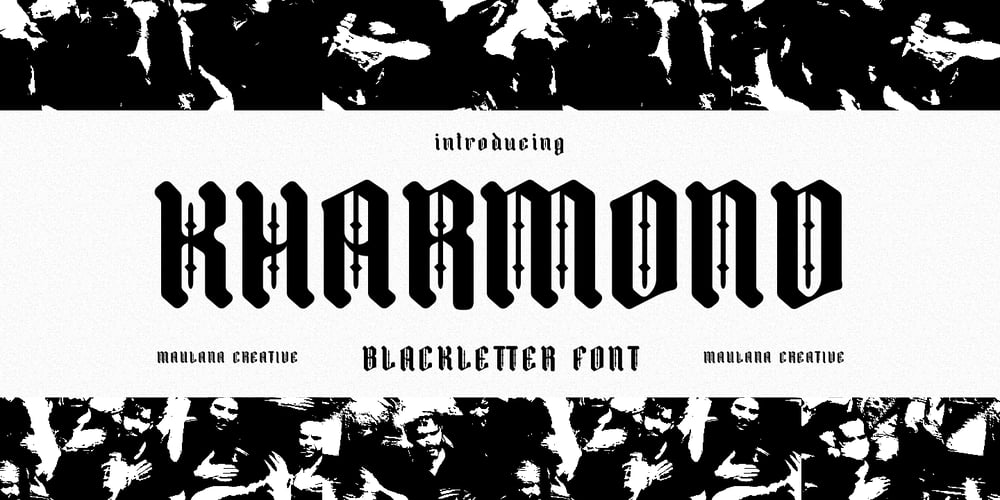
MC Kharmond Font Family was designed by Gilang Maulana and published by Maulana Creative. MC Kharmond contains 1 styles and family package options. Kharmond is a fancy blackletter modern display font. With medium low contrast stroke, fun character with a bit of ligatures and alternates. To give you an extra creative work. Kharmond font support multilingual more than 100+ language. This font is good for logo design, Social media, Movie Titles, Books Titles, a short text even a long text letter and good for your secondary text font with sans or serif. Make a stunning work with Kharmond font. Cheers, Maulana Creative